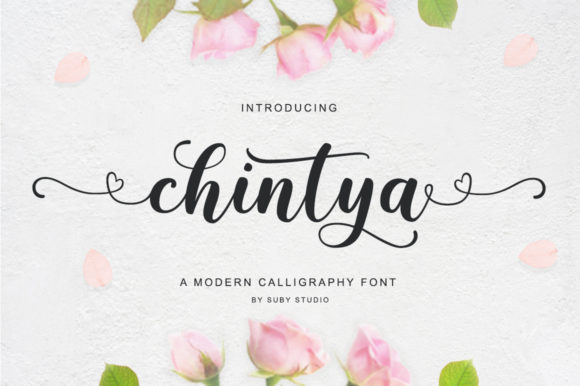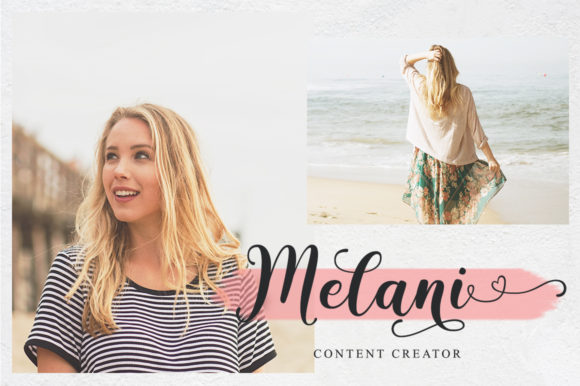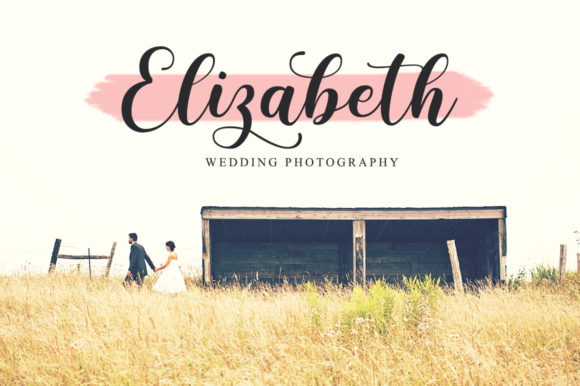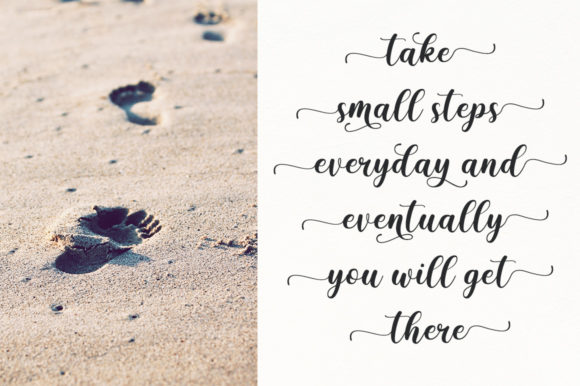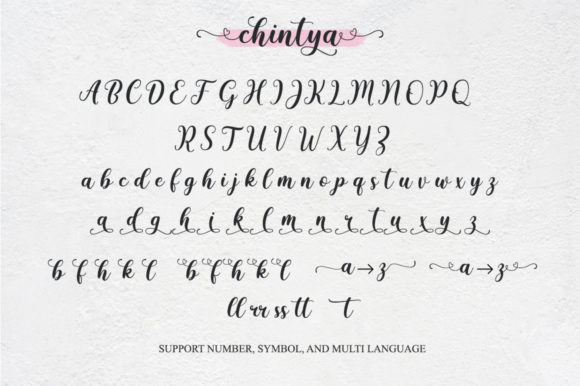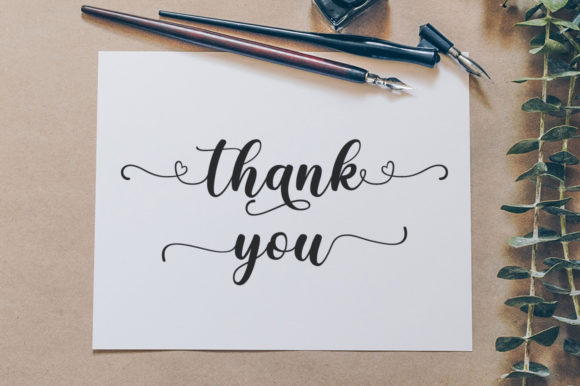
Chintya Font
About Chintya Font
Chintya is a beautiful calligraphy font. It has an elegant and modern feel and can be used for logos, branding, invitations, stationery, wedding designs, social media posts, and much more.